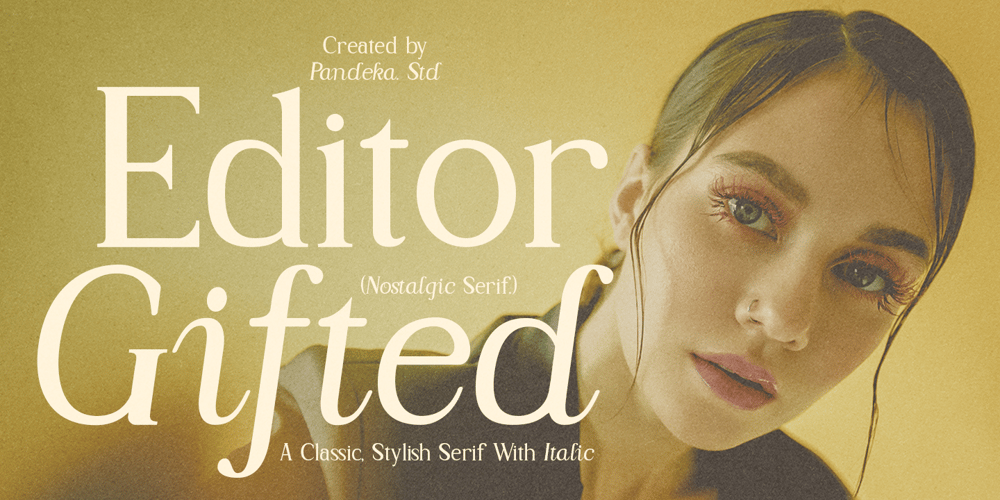
Editor Gifted Font Family was designed by Sagara Nararya and published by Pandeka Studio. Editor Gifted contains 2 styles and family package options. Say hello to the new classic nineties retro font, Editor Gifted!Editor Gifted – A classic nineties retro with a complementary italic version. In the italic family, we make it different from the regular and make a shape with a unique uppercase so it looks more classic, retro but a little modernWe’ve also been loving combining the regular and italic, especially for logos and heading :DIncluded : Editor Gifted main files Regular and Italic Letters, numbers, symbols, and punctuation Use in many programs even in Canva Multilingual Support Language Support: Danish, English, Estonian, Filipino, Finnish, French, Friulian, Galician, German, Gusii, Indonesian, Irish, Italian, Luxembourgish, Norwegian Bokmål, Norwegian Nynorsk, Nyankole, Oromo, Portuguese, Romansh, Rombo, Spanish, Swedish, Swiss-German, Uzbek (Latin)ThanksPandeka Studio